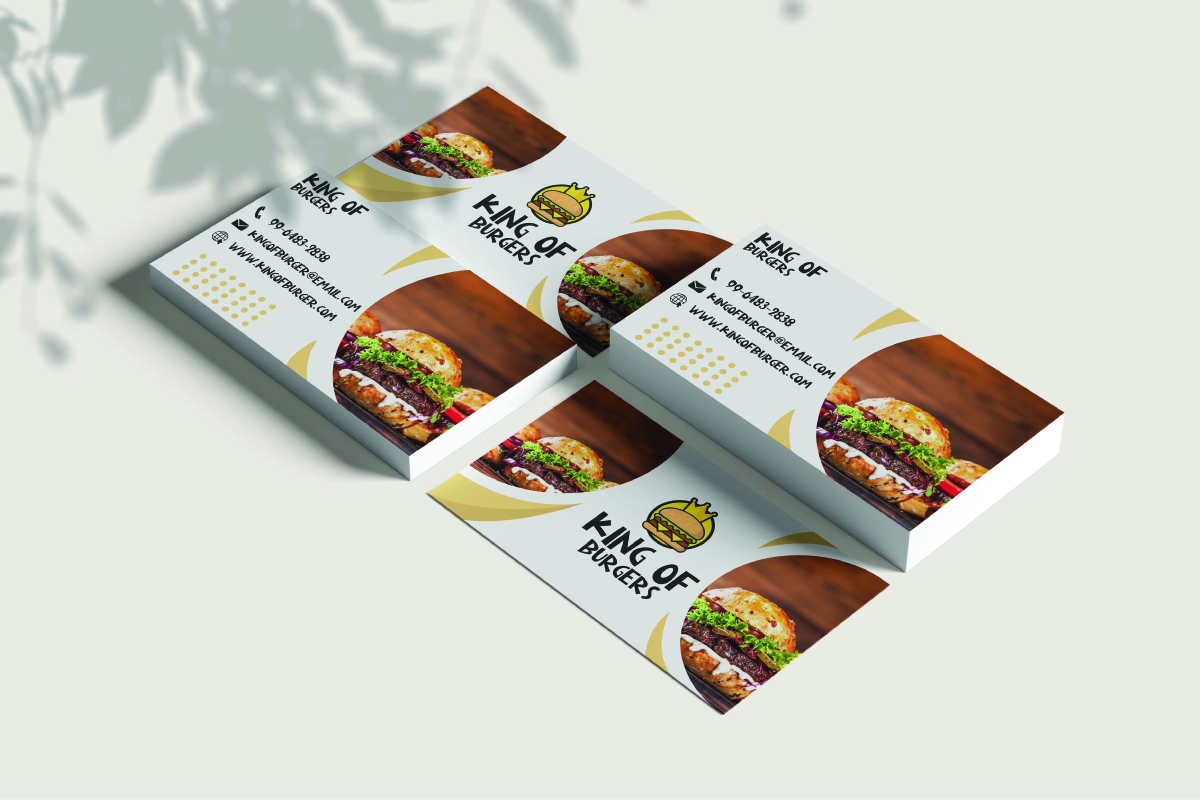
Mushroom Kids Font
Mushroom Kids Display Font
This is a playful sans serif display font with comic kids related style. This funny font is still easy to read and would be awesome for any industry such as: advertisement, café, children’s products, culinary, event, fast food, movie, restaurant, school, publishing, printing, and many more!
Mushroom Kids Font includes full set of Uppercase and Lowercase Basic Characters, Numerals and Punctuation to create a stylish look by adding more unique fonts to enhance your awesome projects. Mushroom Kids Font would be perfect for your projects such as billboard, branding logo, brochure, business card, flyer, invitation, label, menu, product packaging, quote, signage, title, website, etc.